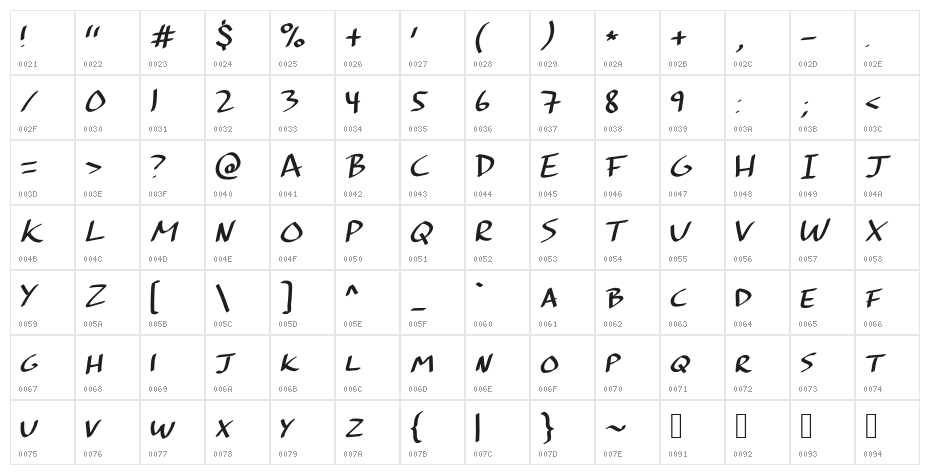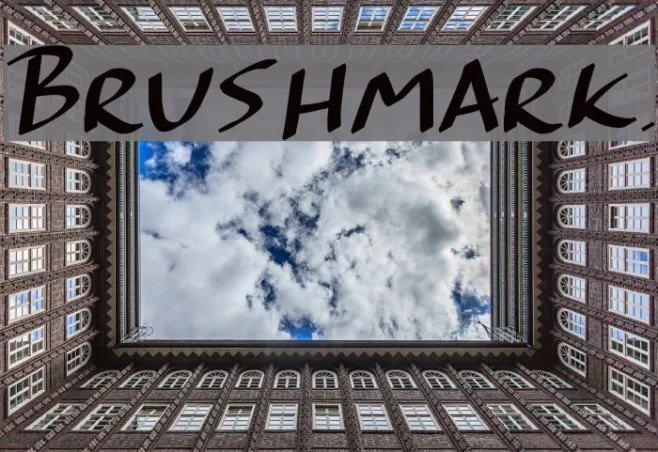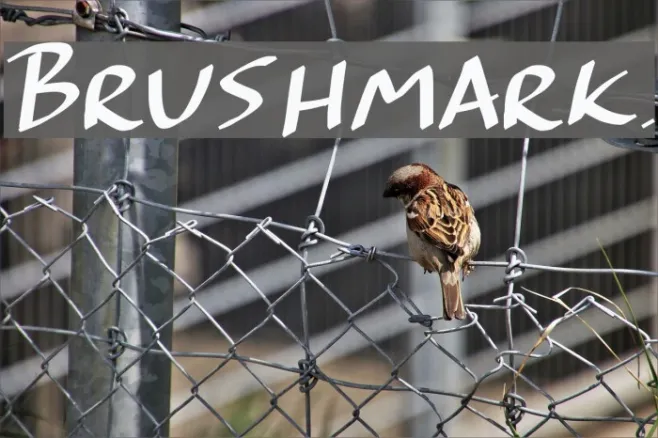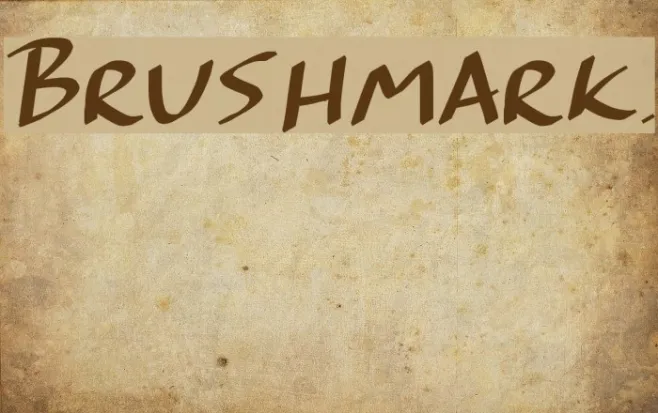
Brushmark. Font
Brushmark. Description
This font exudes a dynamic and energetic feel, reminiscent of brush strokes with a natural flow. The letters are slightly slanted, giving a sense of movement and spontaneity. Each character is crafted with varying stroke thickness, adding a lively and artistic touch. The uppercase and lowercase letters maintain a consistent style, while the numerals and special characters integrate seamlessly with the overall design. This font captures the essence of handwritten expression, making it ideal for creative and informal applications.
| Proposed Projects | Ideal for creative projects such as posters, invitations, branding, and social media graphics where a personal and artistic touch is desired. |